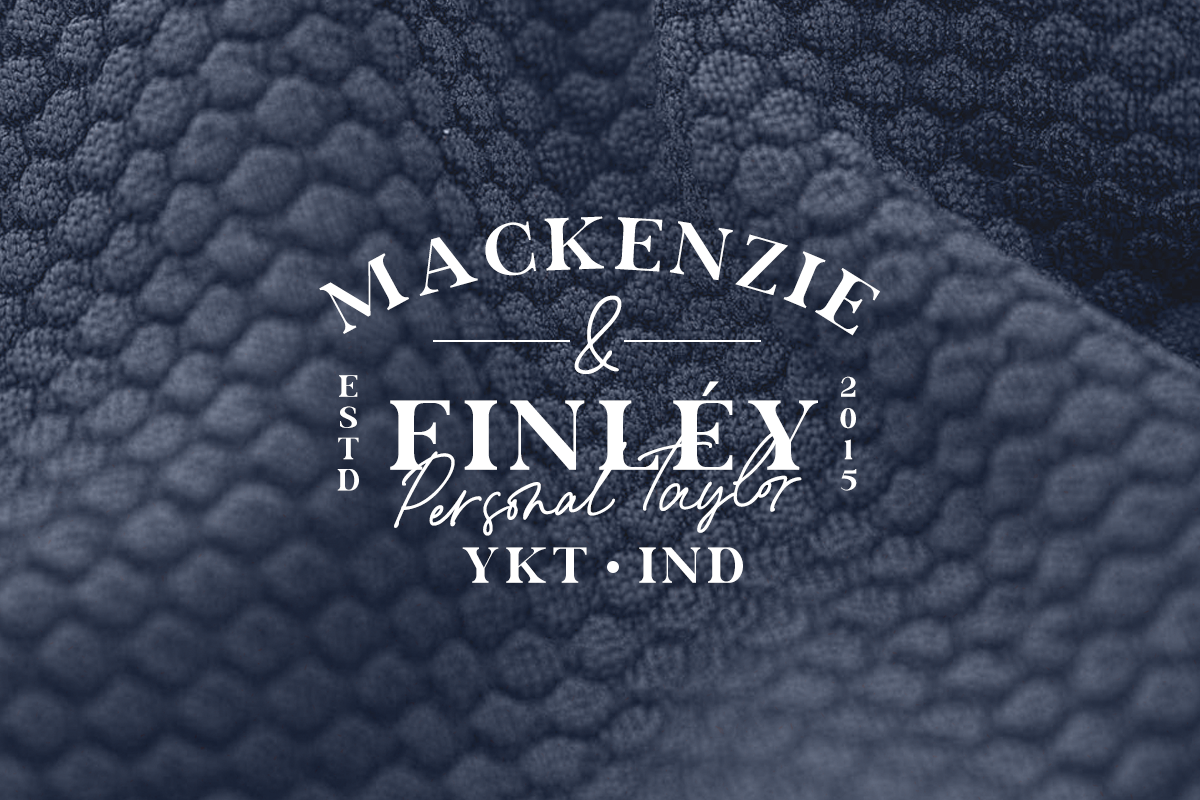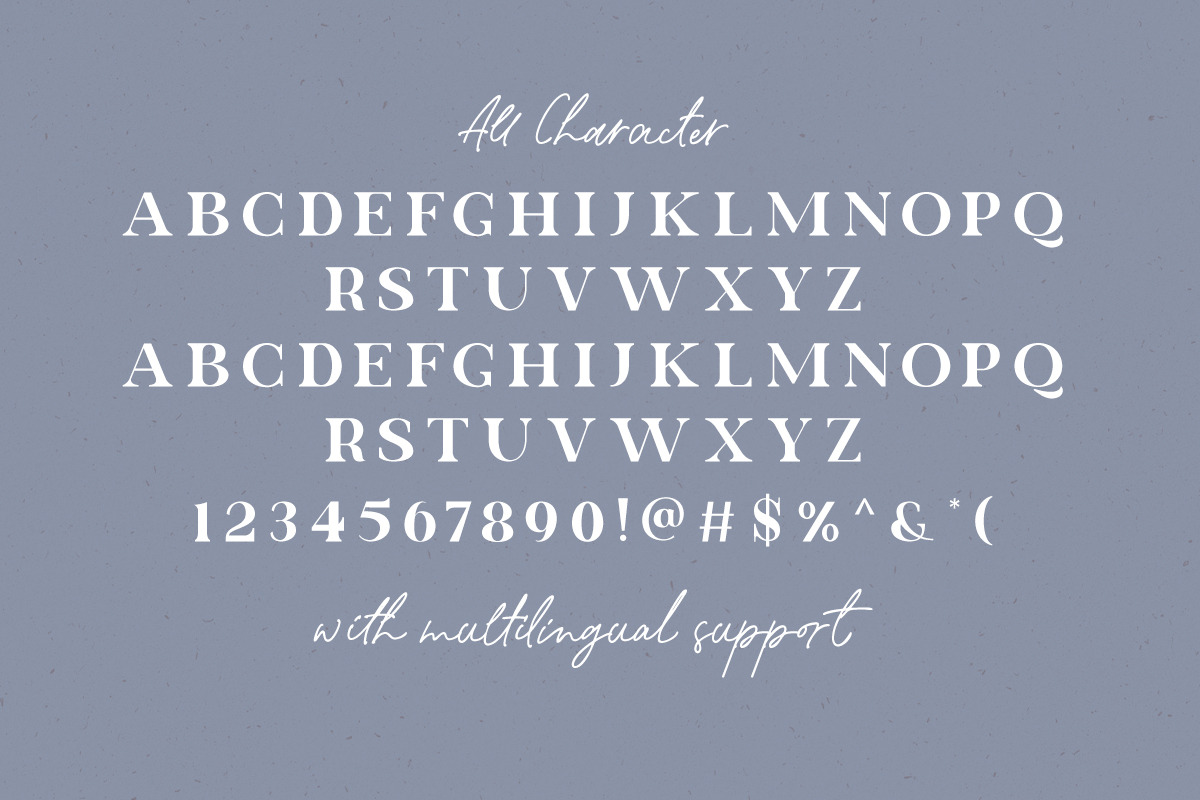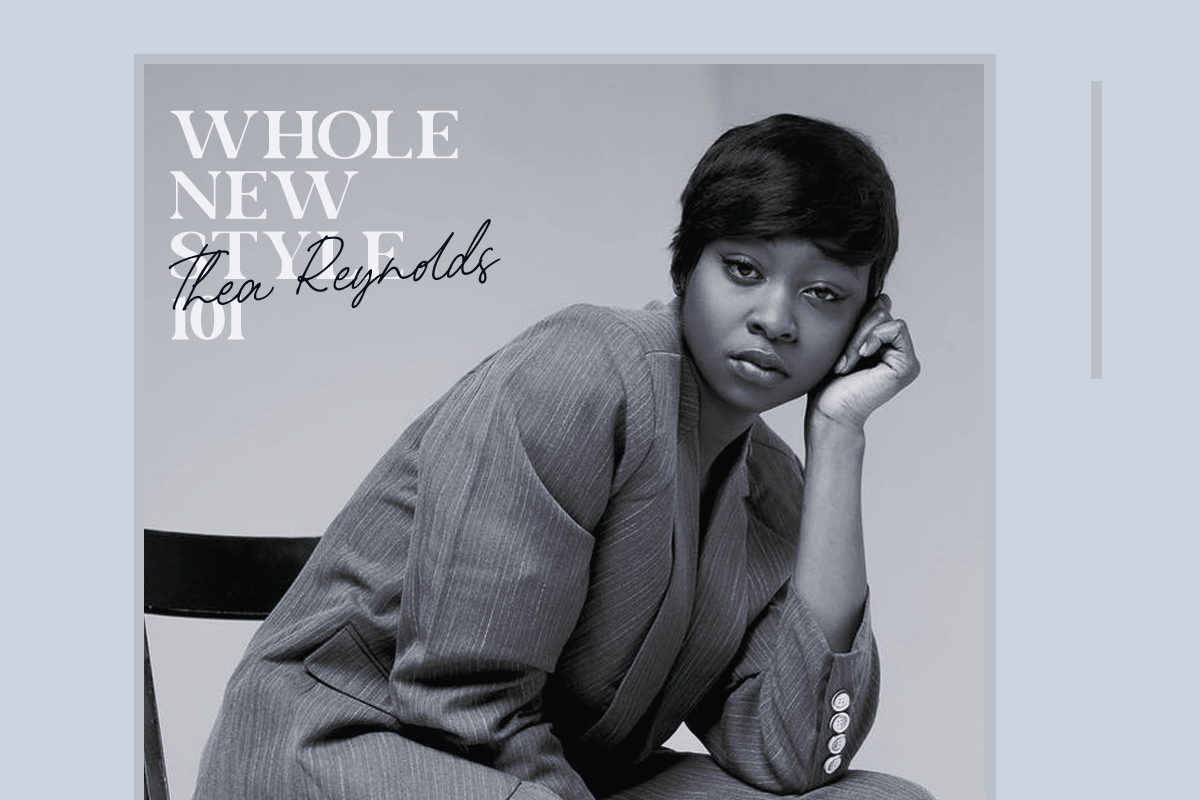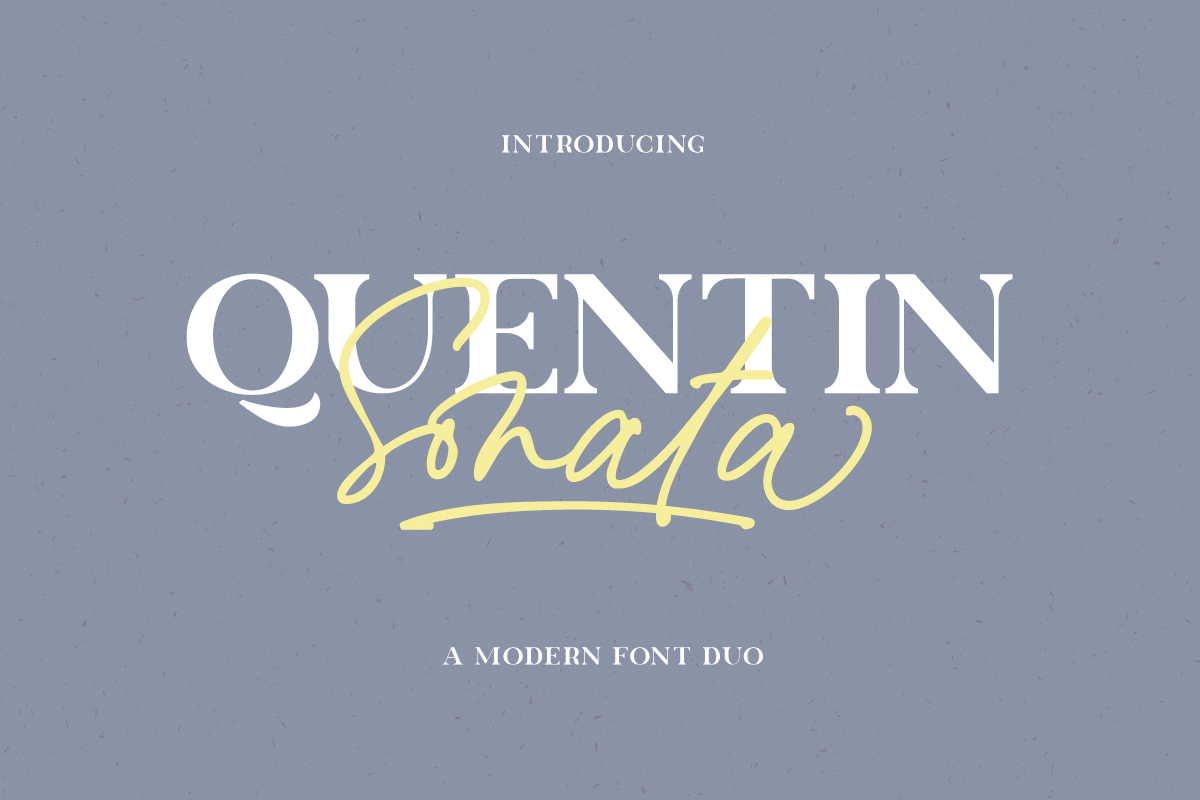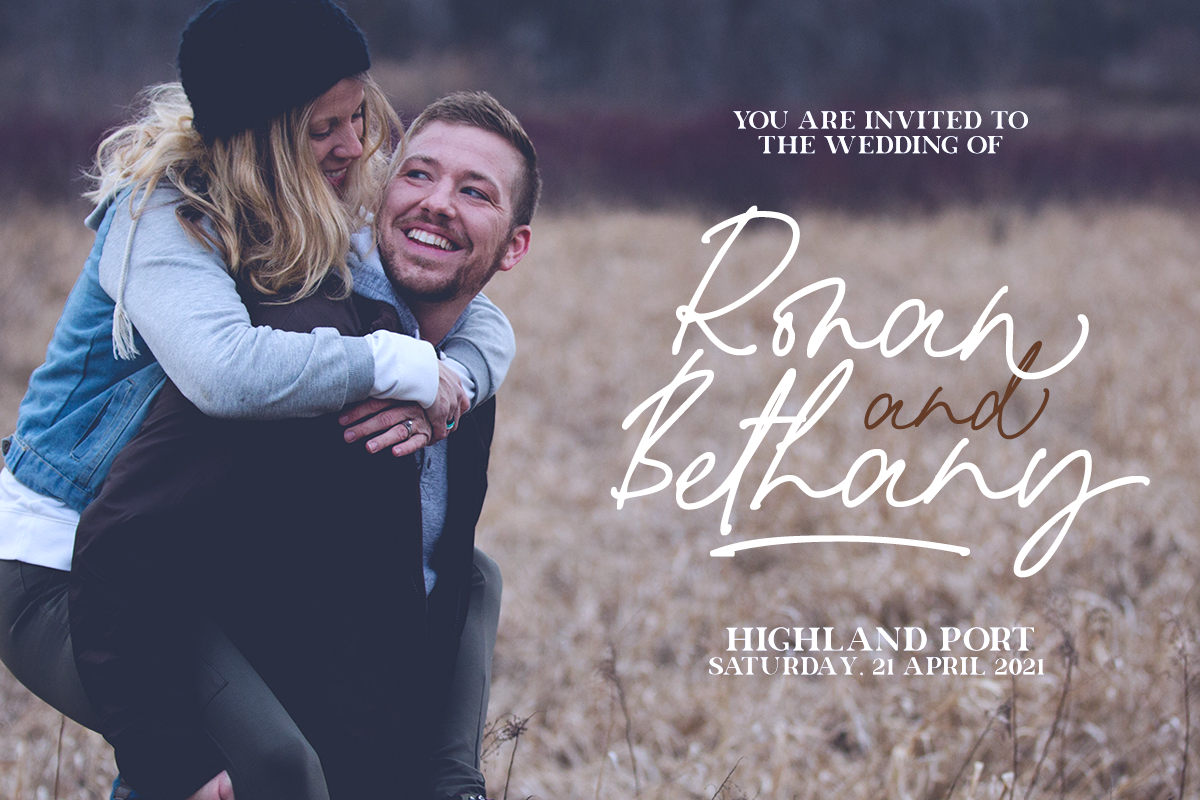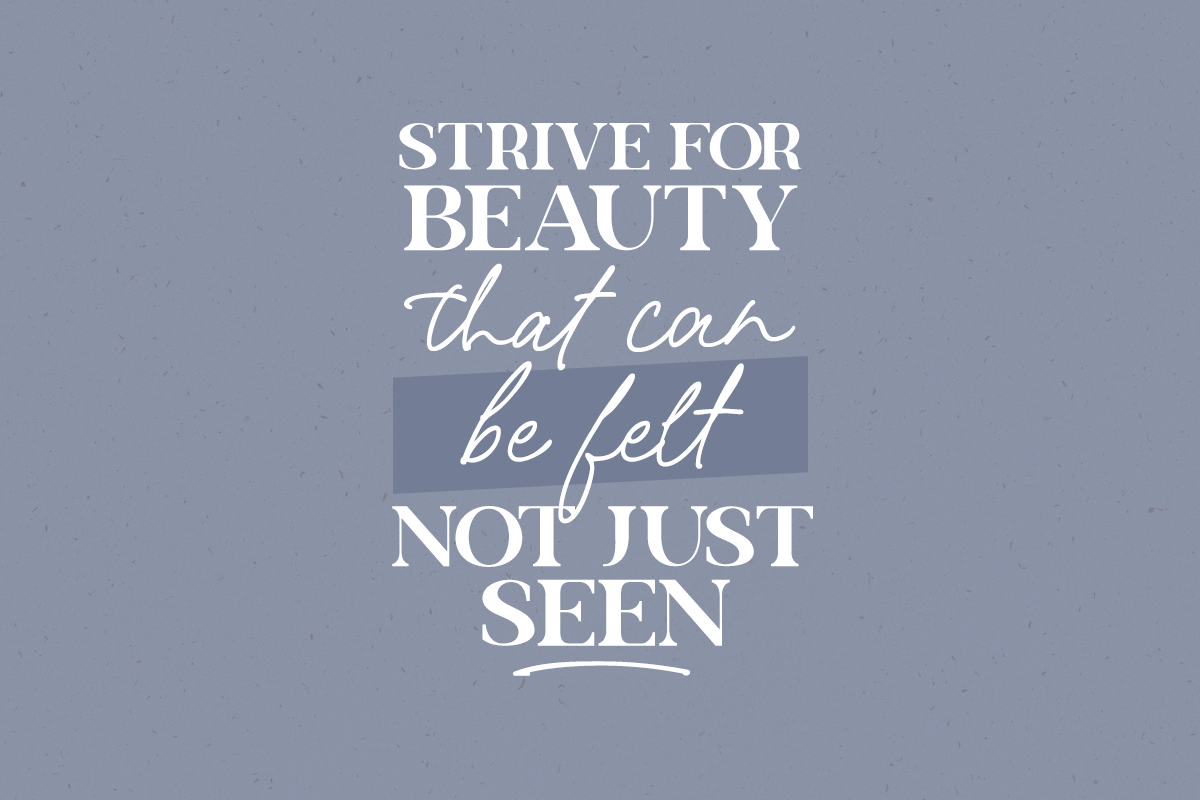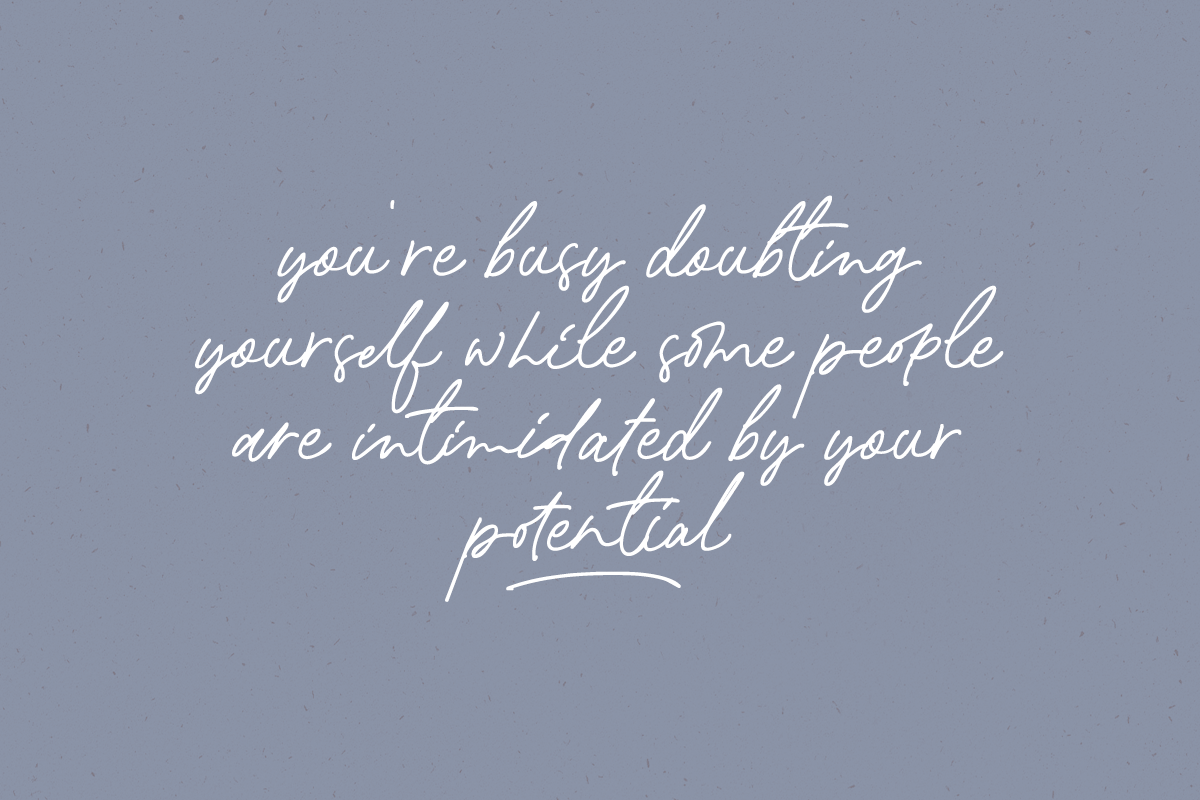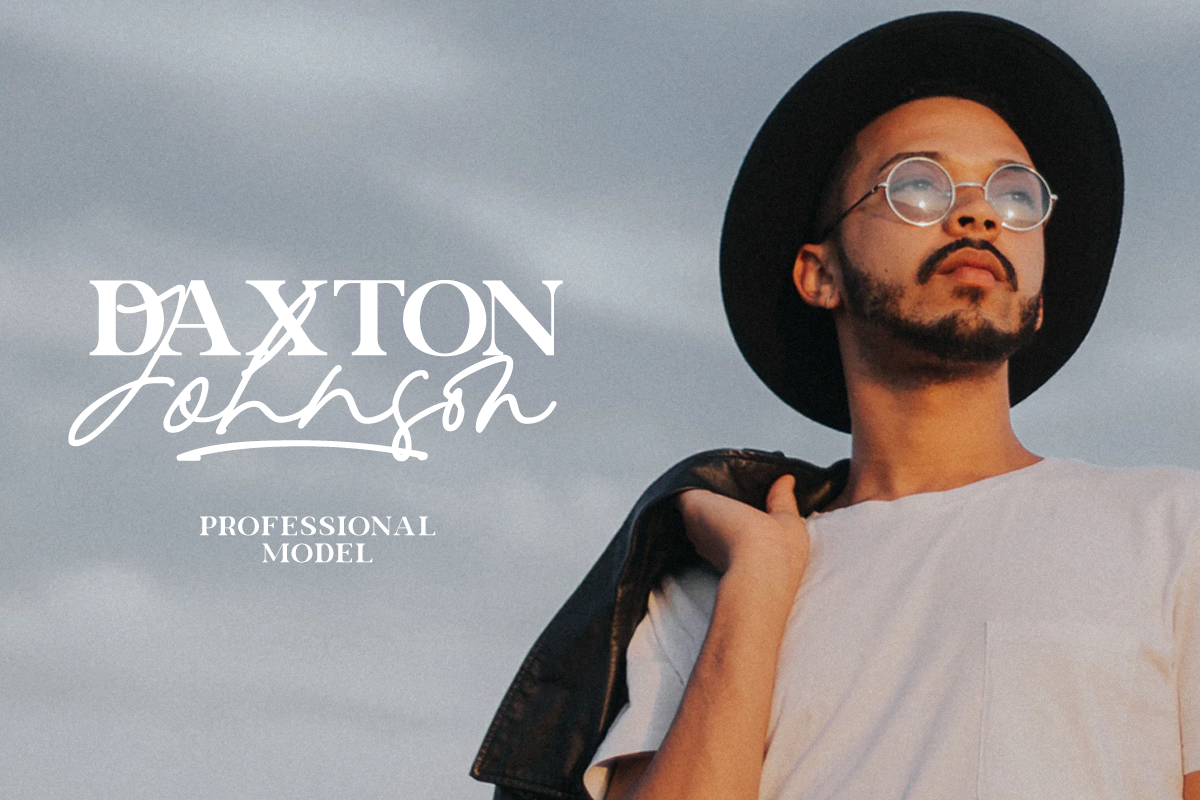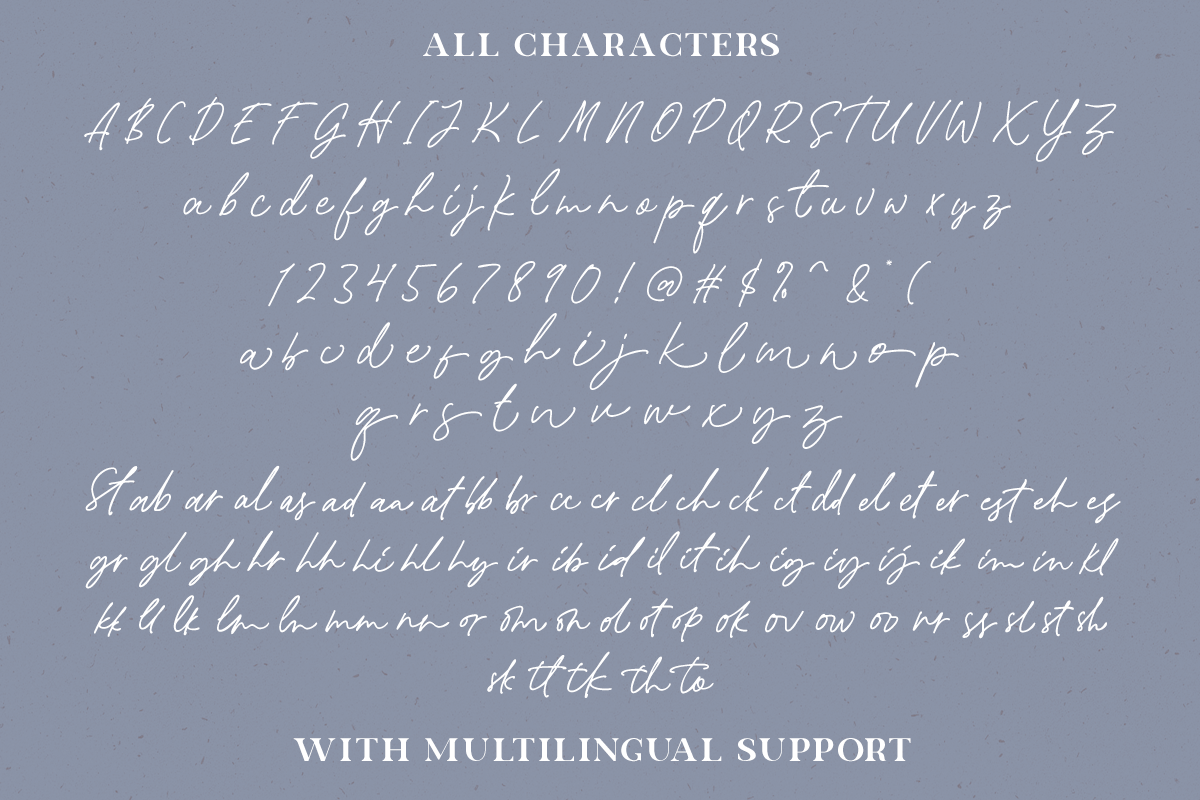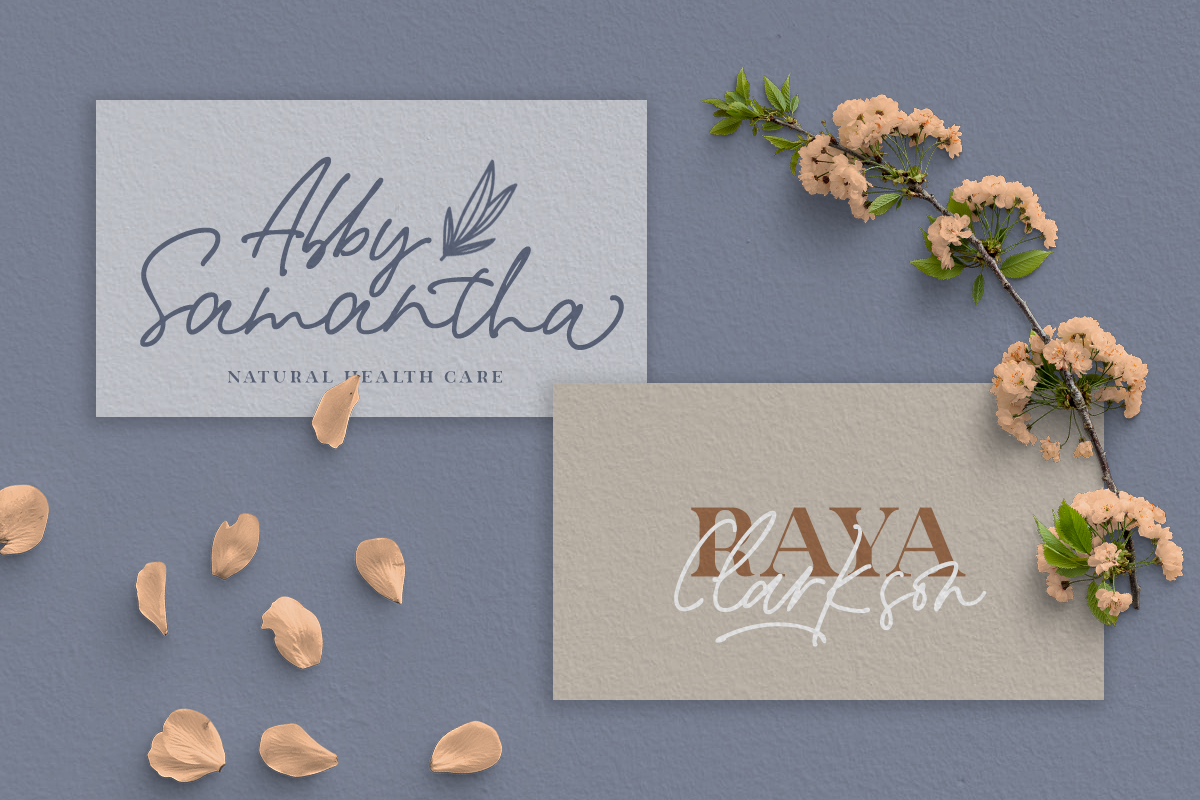
Quentin Sonata - Font Duo
Quentin Sonata is a pair of modern serif and classy handwritten script with LOTS of ligatures that carefully created to fit on each other. its a versatile font that works perfectly for branding projects, logo design, product packaging, headline, quotes, etc.
to access the underline on Quentin Sonata Script just simple type _(number 1-6) in the middle of the word, for example _1 _2 _3 etc